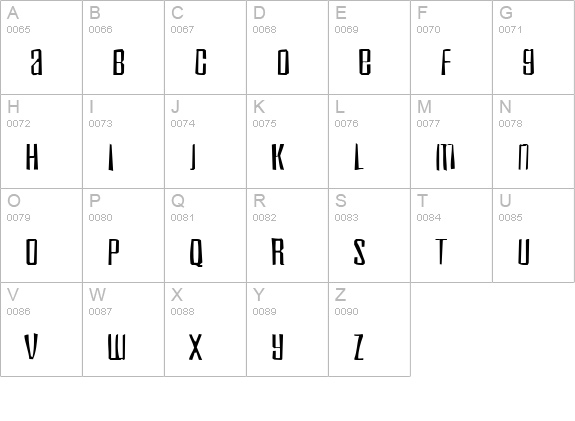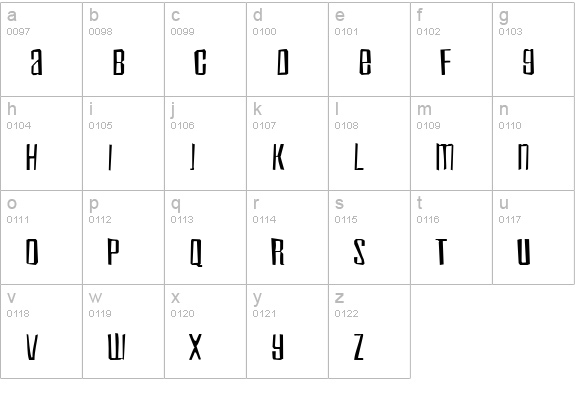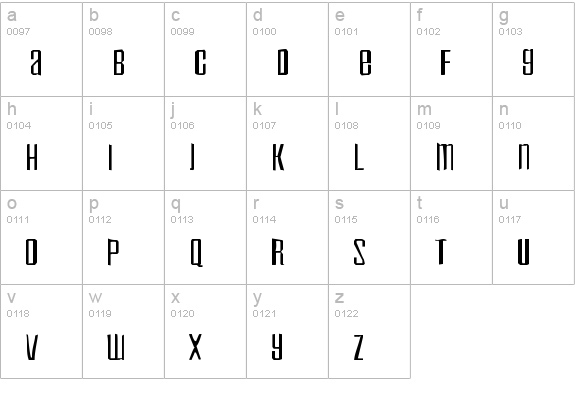
Inflammable Age Gaunt Font Details
Inflammable Age Gaunt font is a striking and modern typeface that exudes a sense of edgy sophistication. With its sharp angles and delicate curves, this font is perfect for creating eye-catching designs that demand attention. The sleek and streamlined appearance of Inflammable Age Gaunt makes it ideal for a wide range of projects, from branding to editorial design. One of the best things about Inflammable Age Gaunt font is that it is available for free download at FontsMarket.com. This means that you can easily incorporate this stylish typeface into your projects without breaking the bank. Whether you're working on a personal project or a professional design, Inflammable Age Gaunt font is sure to make a bold statement and elevate your work to the next level.